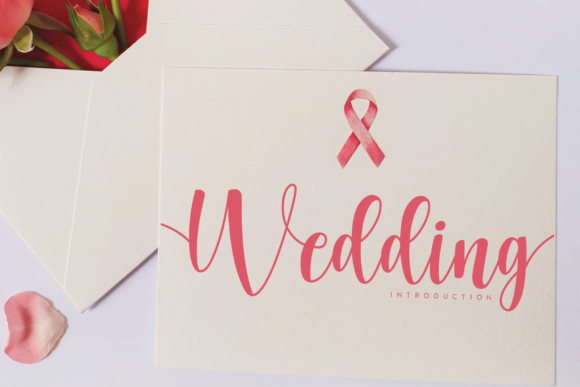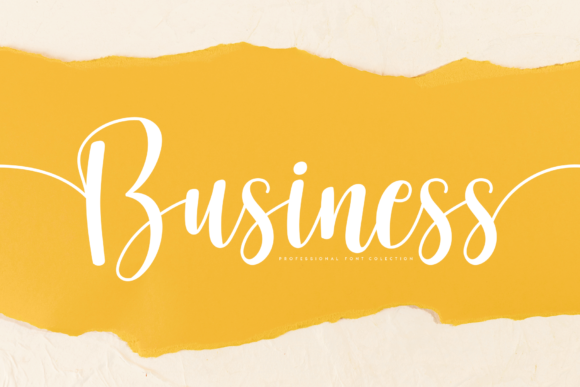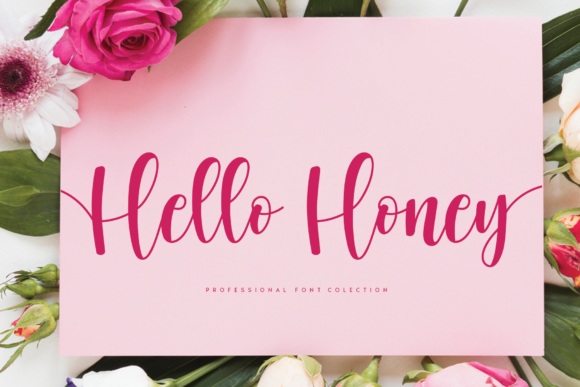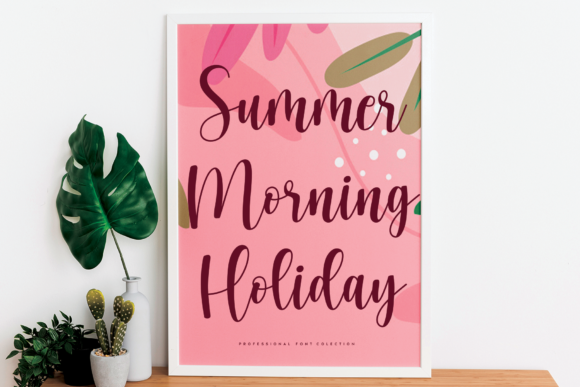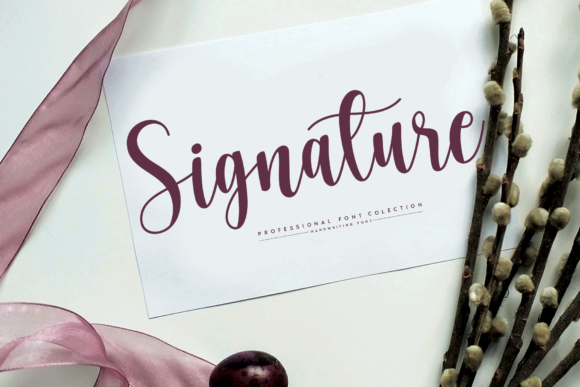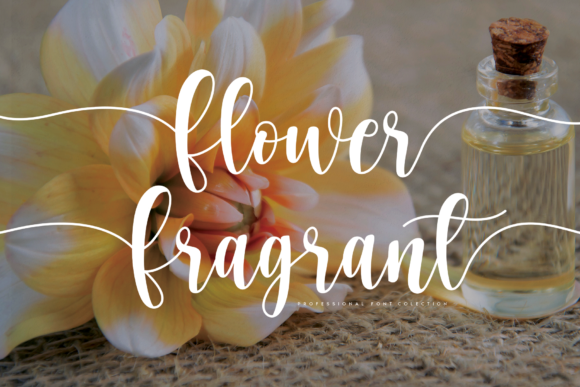
Introduction to Homework Font
Homework is a flowing handwritten font, described by an elegant touch, perfect for your favorite projects.
Fall in love with its incredibly distinct and timeless style and use it to create spectacular designs This font is PUA encoded which means you can access all of the glyphs and swashes with ease.
Key Features of Homework Font
Why Choose Homework Font?
Homework Font offers exceptional quality and versatility, making it a valuable addition to your design toolkit. Whether you’re creating for personal projects or commercial use, Homework Font delivers professional results.